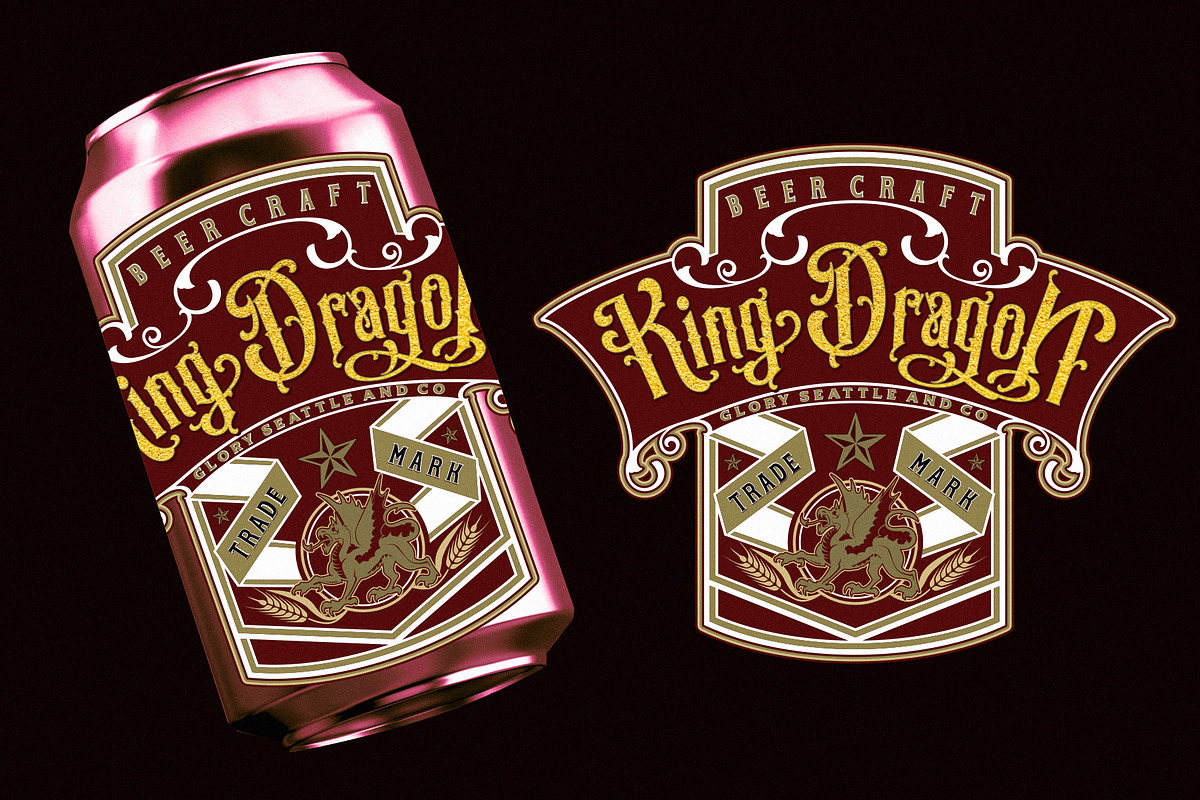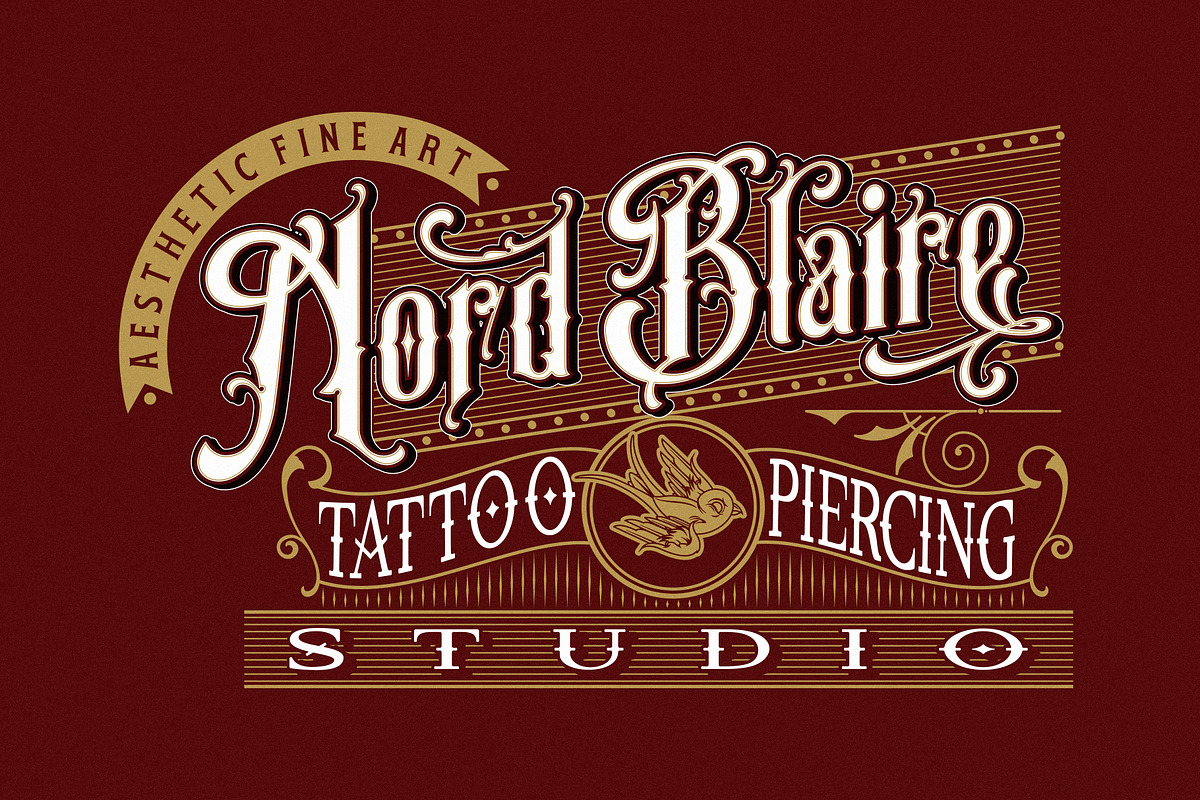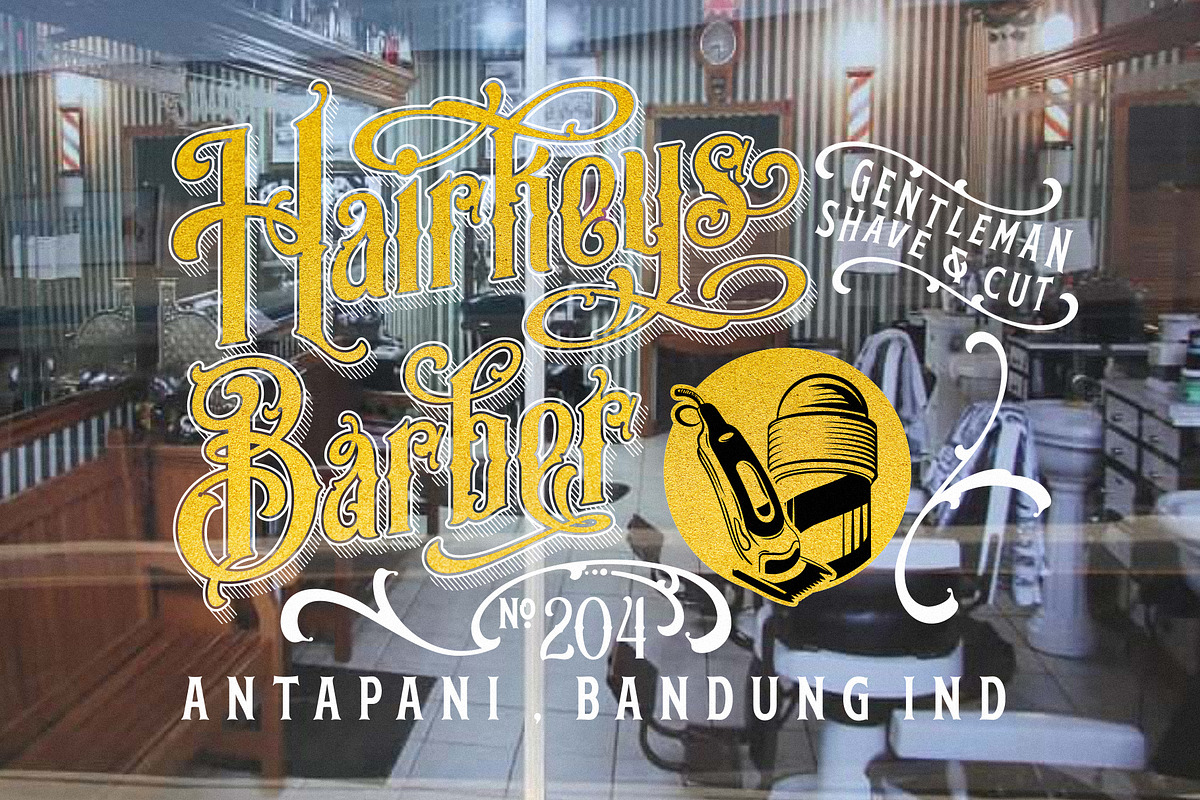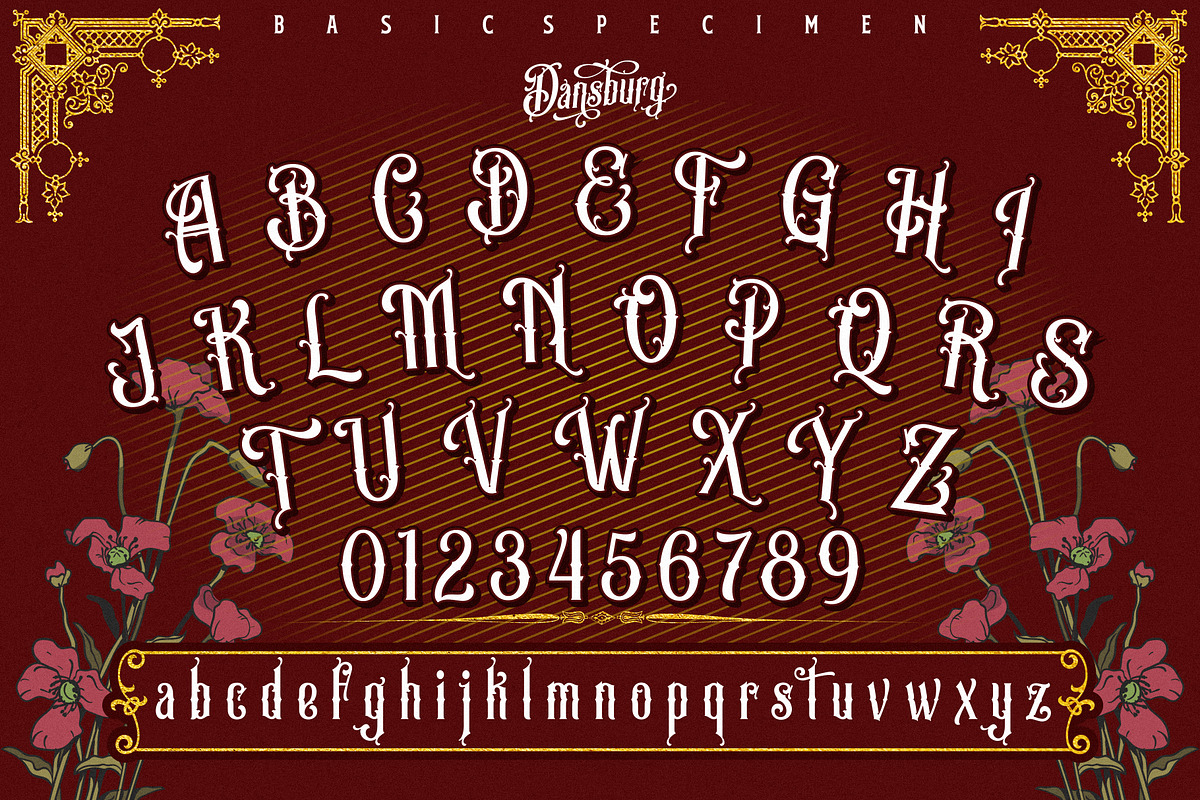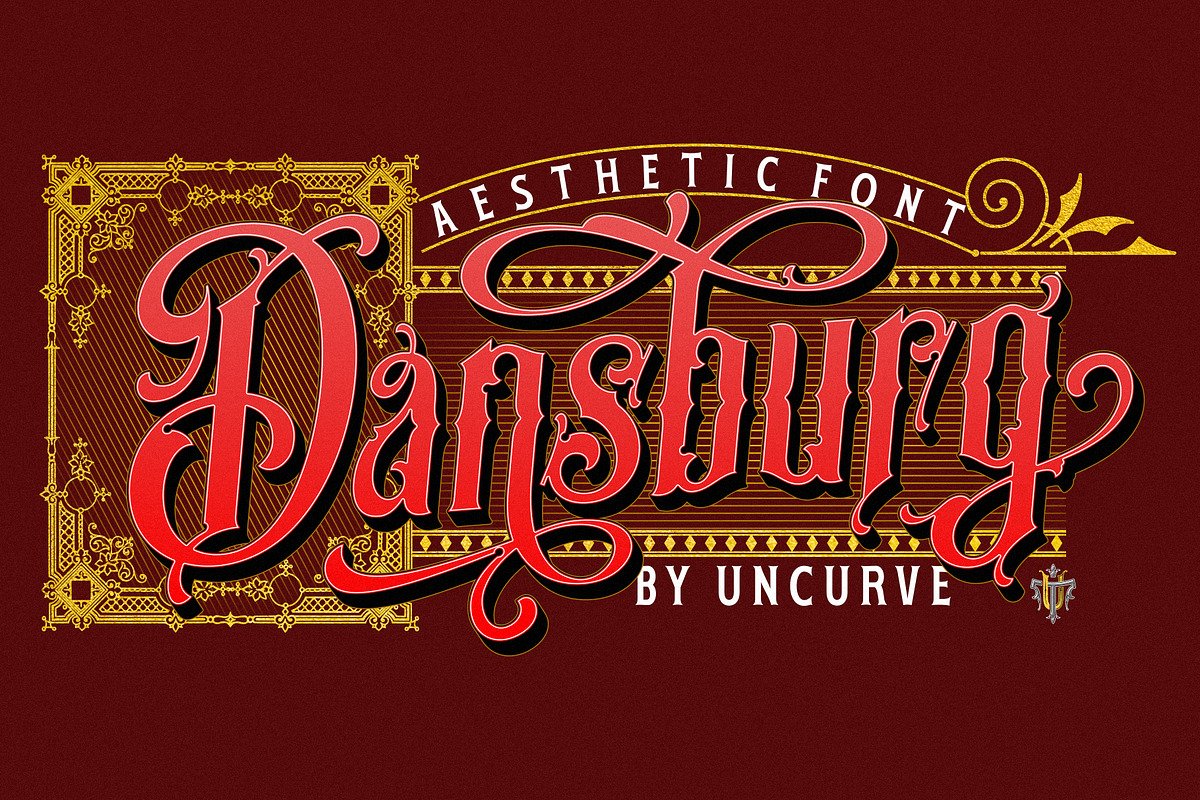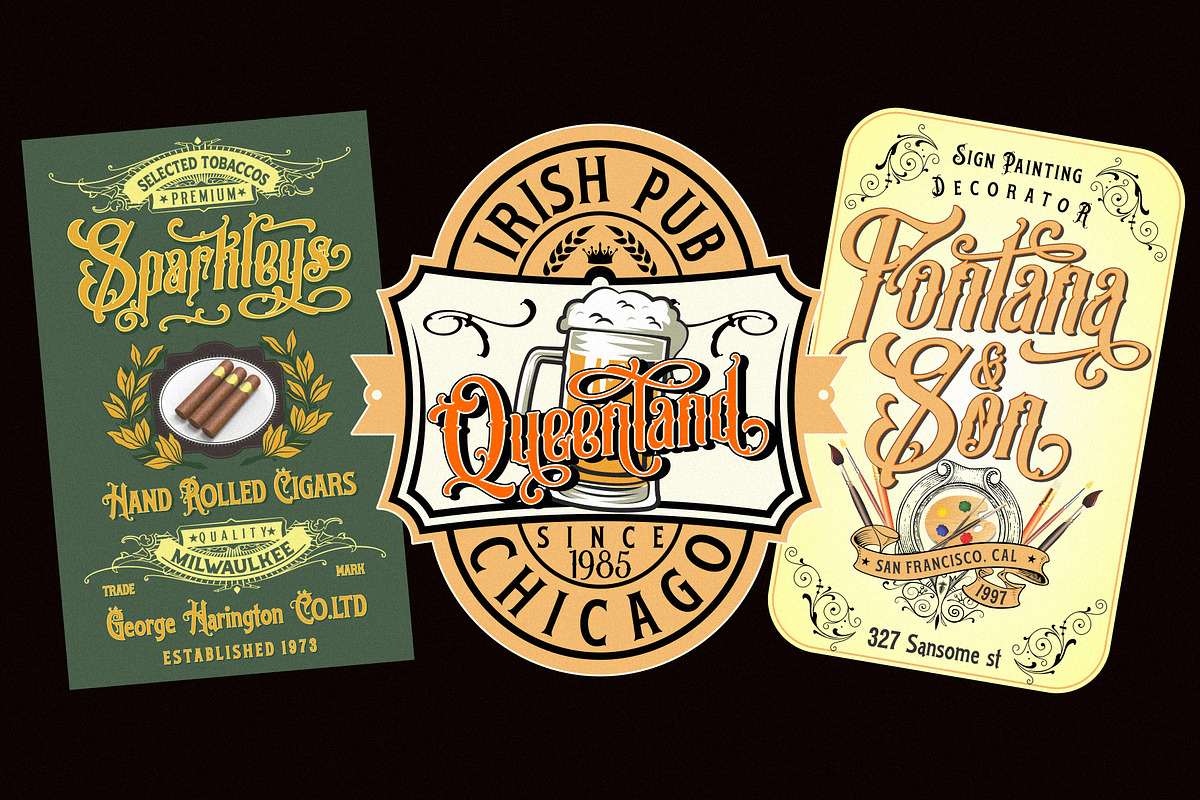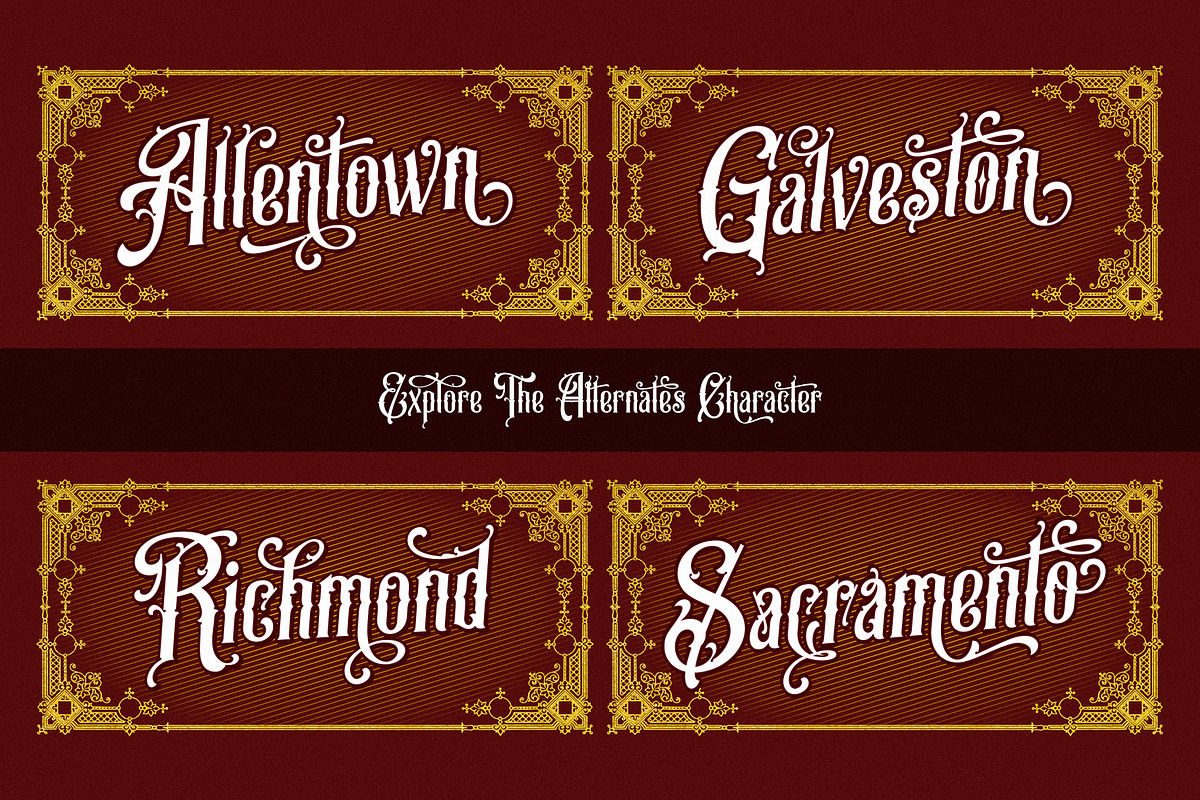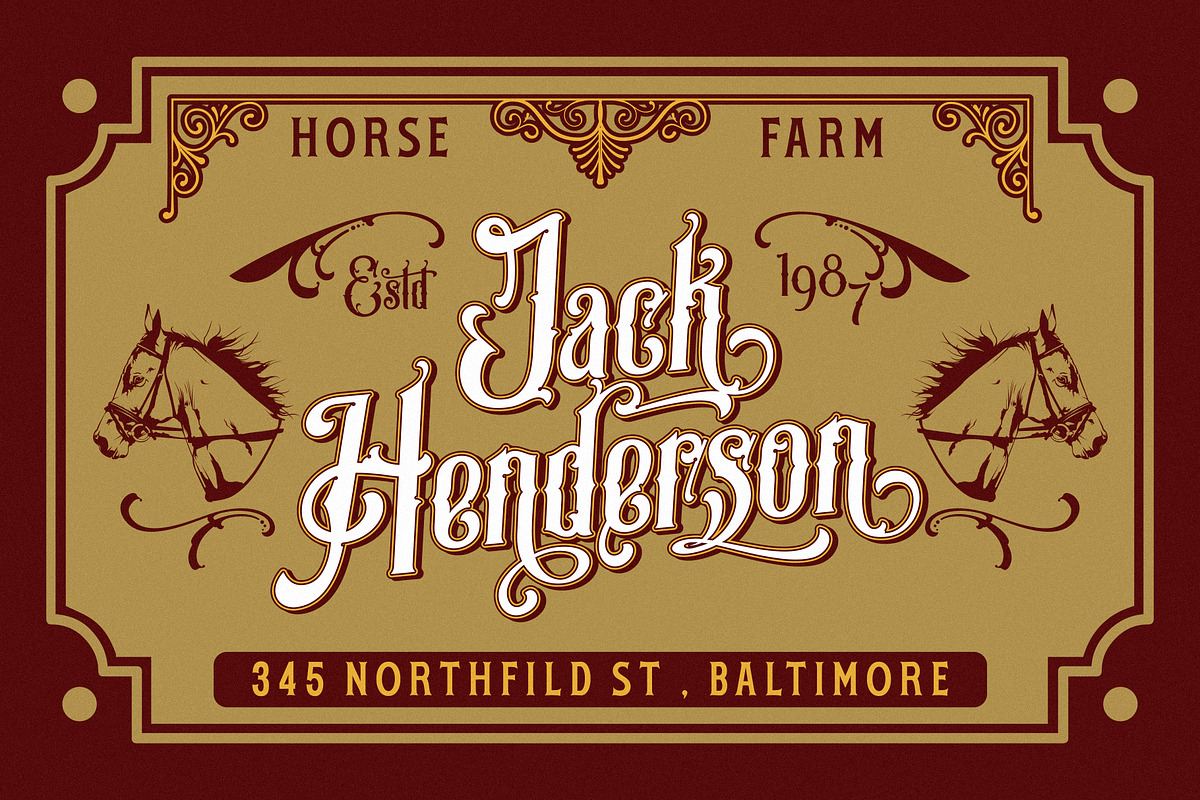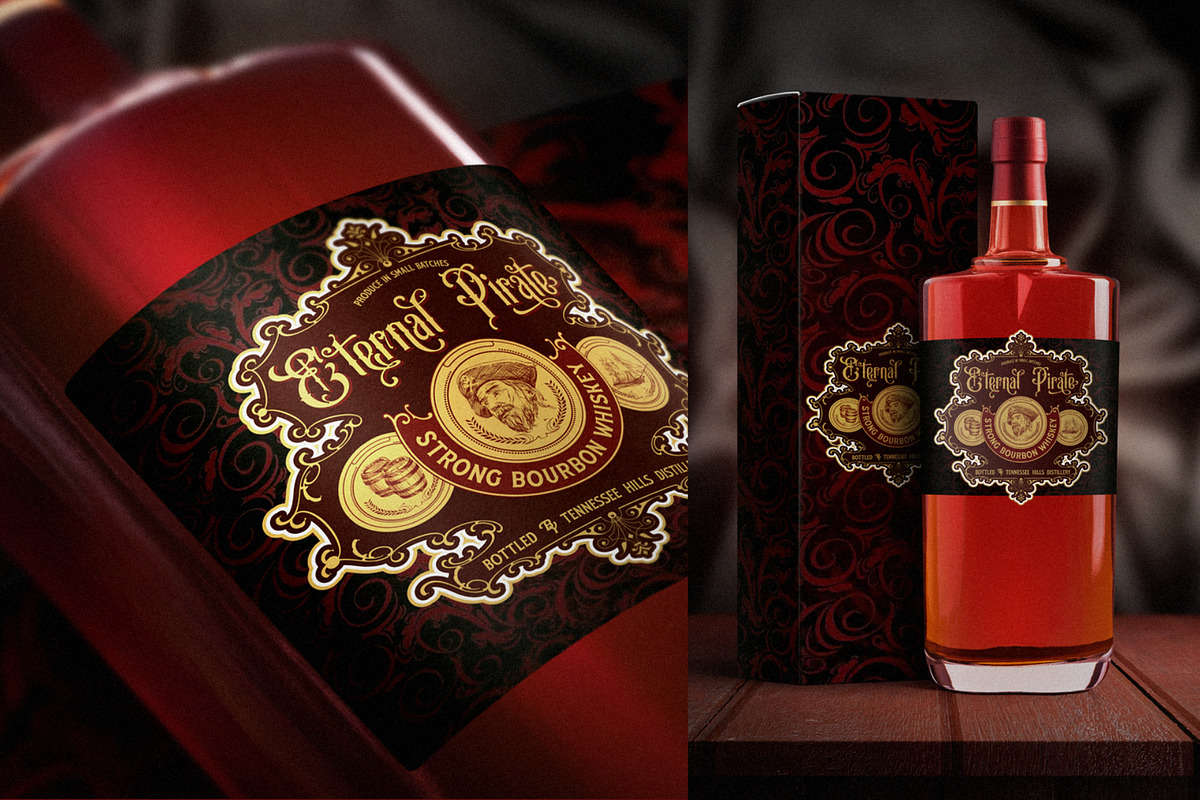
Dansburg
Dansburg is an aesthetic vintage font, inspired from the past typography , elegant signage, gold leaf , sign painting and old label product. Dansburg comes with tons of alternates characters to make more eye cacthy .
Dansburg Font is suitable for authentic logos, headings, sign painting, posters ,letterhead, branding, magazines, album covers, book covers, movies, apparel design, flyers, greeting cards, product packaging, and more.